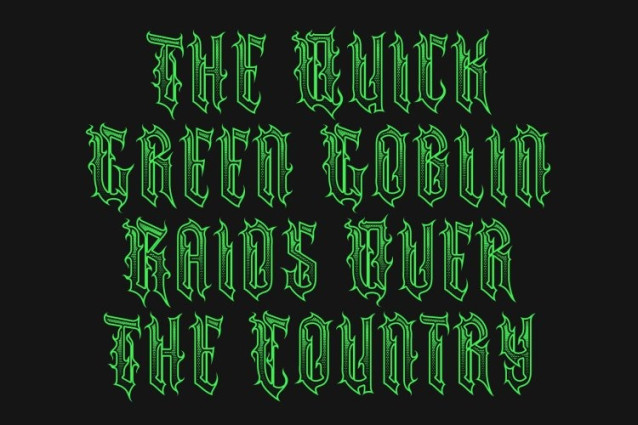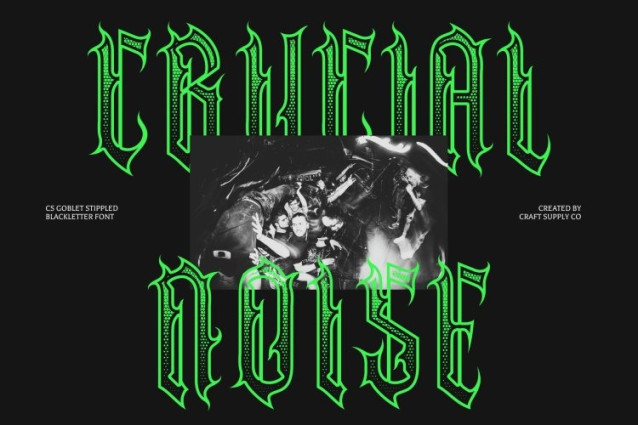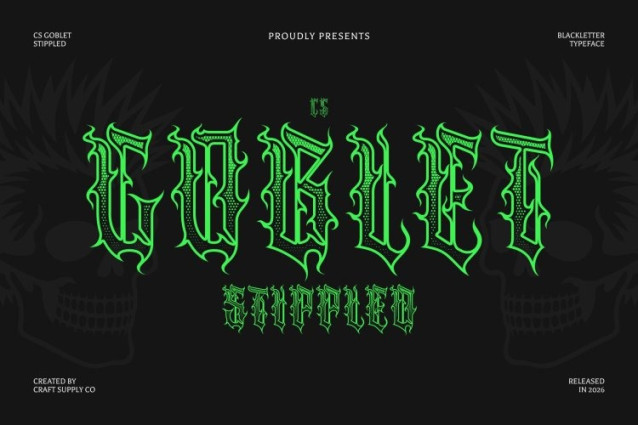
CS Goblet Stippled Font
CS Goblet Stippled Font is a blackletter display font that captures the grandeur and craftsmanship of medieval typography. Defined by angular strokes, sharp serifs, and strong vertical rhythm, the font embodies the dramatic elegance of traditional Gothic calligraphy. The addition of a stippled texture introduces a subtle dotted surface, enhancing the visual depth and giving the typeface a handcrafted, engraved appearance reminiscent of antique print techniques.
Intricate Letterforms with Historic Character
The carefully structured letterforms feature dramatic contrasts and ornamental details that evoke the beauty of historical manuscripts and heraldic lettering. With the stippled effect enriching its surfaces, this font gains an added layer of texture that strengthens its vintage and historical aesthetic while preserving clarity for display use.
A Blend of Tradition, Mystery, and Authority
Rooted in medieval script traditions, this font conveys a sense of heritage, mystery, and authority. Its bold strokes and decorative structure create a commanding presence, making it especially effective for designs that seek to communicate tradition, power, and artistic depth.
Perfect for Gothic and Heritage-Themed Designs
This font is ideal for metal band logos, fantasy book covers, game titles, craft beer labels, vintage branding, and historical-themed visuals. Its dark elegance and textured detail give projects a distinctive gothic atmosphere that feels both dramatic and authentic.